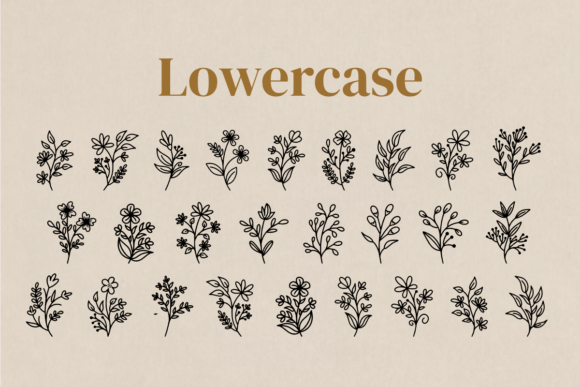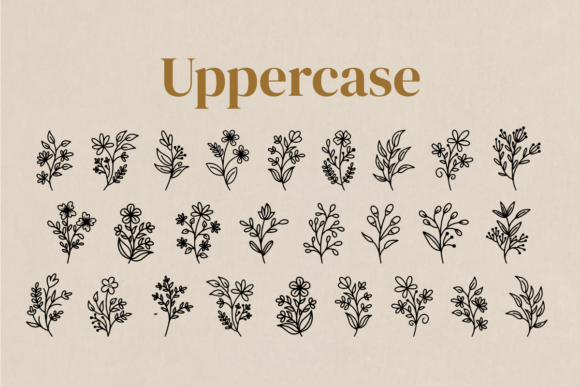
Introducing Flowering Font: Elevate Your Creative Projects with Botanical Wildflower Dingbats
Are you a designer, crafter, or creative enthusiast looking for a unique and beautiful font to enhance your projects? Look no further than Flowering Font, a stunning botanical wildflower dingbats font that’s perfect for adding a touch of elegance and whimsy to your work. In this article, we’ll explore the features and benefits of Flowering Font, and show you how it can elevate your creative projects, from social media and book covers to invitations, business cards, and more.
What is Flowering Font?
Flowering Font is a one-of-a-kind, hand-crafted font that features beautiful botanical wildflower illustrations. This dingbats font is designed to add a touch of nature and sophistication to your creative projects. With its delicate and intricate designs, Flowering Font is perfect for a wide range of applications, from digital projects to print materials.
Key Features of Flowering Font
- Unique and Exclusive Design: Flowering Font features original and exclusive designs that will set your projects apart from the rest.
- Botanical Wildflower Illustrations: The font includes a wide range of beautiful botanical wildflower illustrations that will add a touch of elegance to your work.
- Dingbats Font: Flowering Font is a dingbats font, which means you can use the illustrations as individual characters, making it easy to incorporate into your projects.
- Scalable and Versatile: The font is highly scalable, making it perfect for use in a variety of projects, from small icons to large posters.
How to Use Flowering Font in Your Creative Projects
Flowering Font is incredibly versatile and can be used in a wide range of creative projects, including:
- Social Media: Add a touch of elegance to your social media posts and stories with Flowering Font.
- Book Covers and Invitations: Use Flowering Font to create beautiful and eye-catching book covers, invitations, and greeting cards.
- Business Cards and Stationery: Add a professional touch to your business cards, letterheads, and other stationery with Flowering Font.
- Printing and DIY Projects: Use Flowering Font to create stunning print materials, such as posters, flyers, and brochures, or incorporate it into your DIY projects, like crafts and scrapbooking.
- Mugs and Other Products: Add a personal touch to your mugs, t-shirts, and other products with Flowering Font.
Benefits of Using Flowering Font
By using Flowering Font in your creative projects, you’ll enjoy a range of benefits, including:
- Unique and Eye-Catching Designs: Flowering Font will help your projects stand out from the crowd with its beautiful and unique designs.
- Time-Saving: The font’s dingbats design makes it easy to incorporate into your projects, saving you time and effort.
- Professional and Elegant Look: Flowering Font will add a touch of professionalism and elegance to your projects, making them perfect for personal or commercial use.
Flowering Font is a beautiful and unique botanical wildflower dingbats font that’s perfect for designers, crafters, and creative enthusiasts. With its delicate and intricate designs, this font is sure to elevate your creative projects and add a touch of elegance and whimsy. Whether you’re working on social media, book covers, invitations, business cards, or DIY projects, Flowering Font is the perfect choice. So why wait? Download Flowering Font today and start creating stunning projects that will leave a lasting impression!